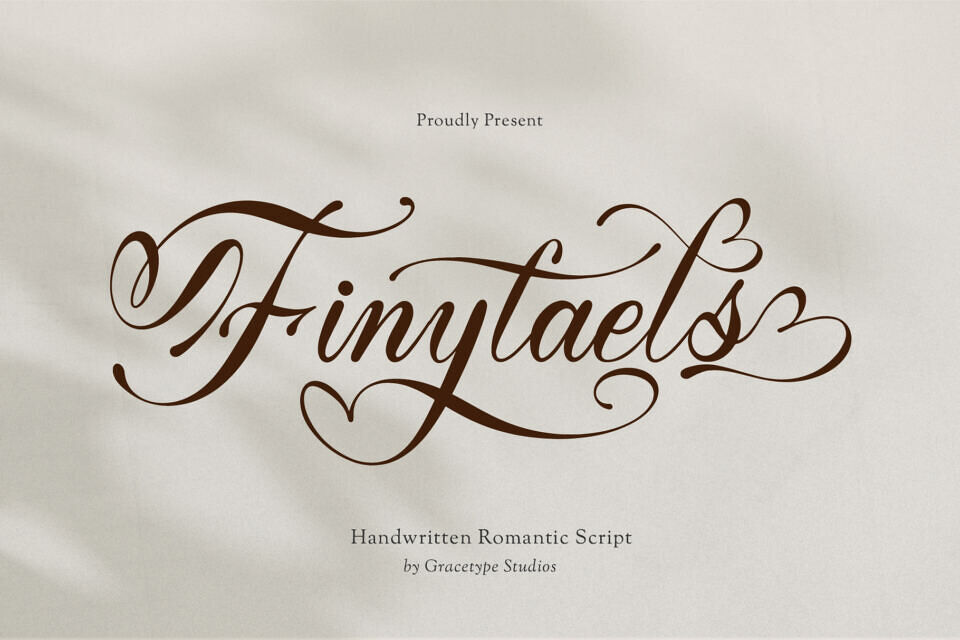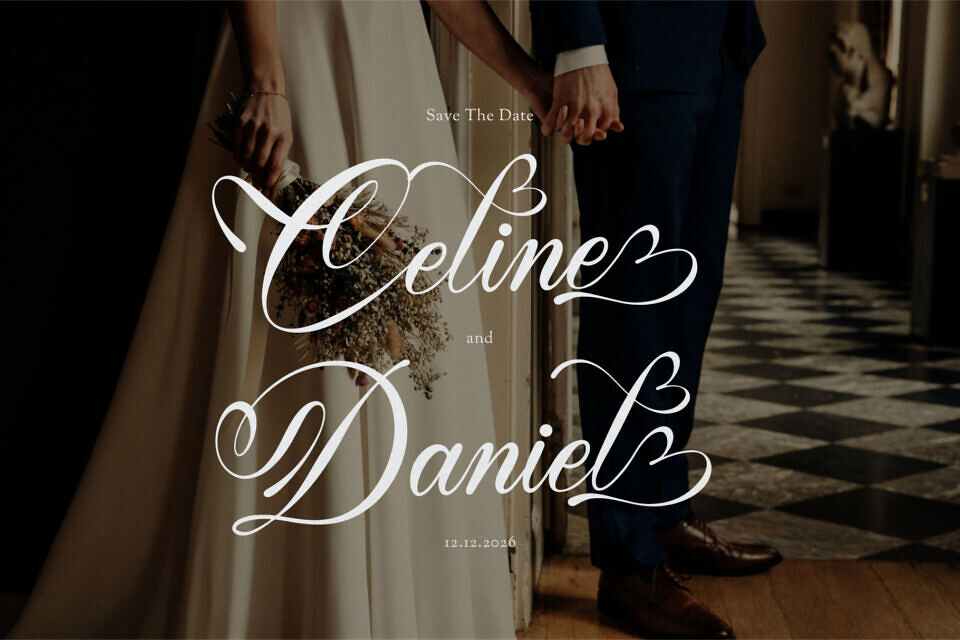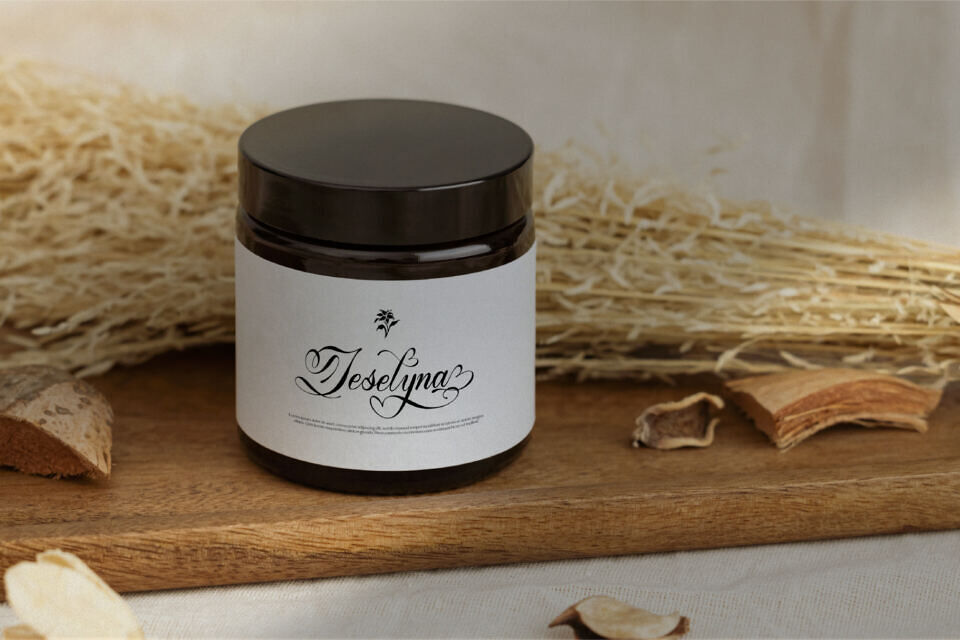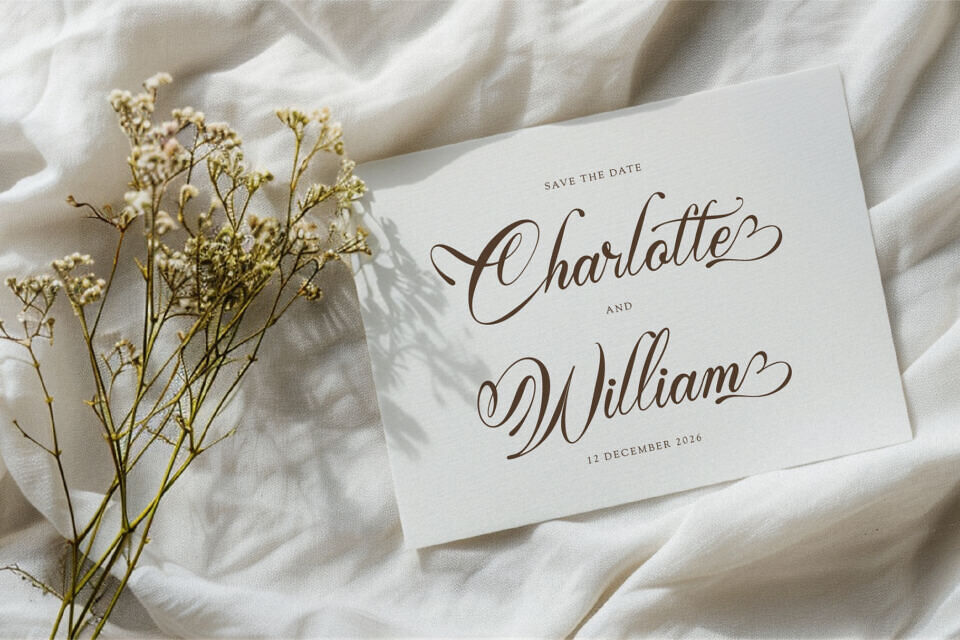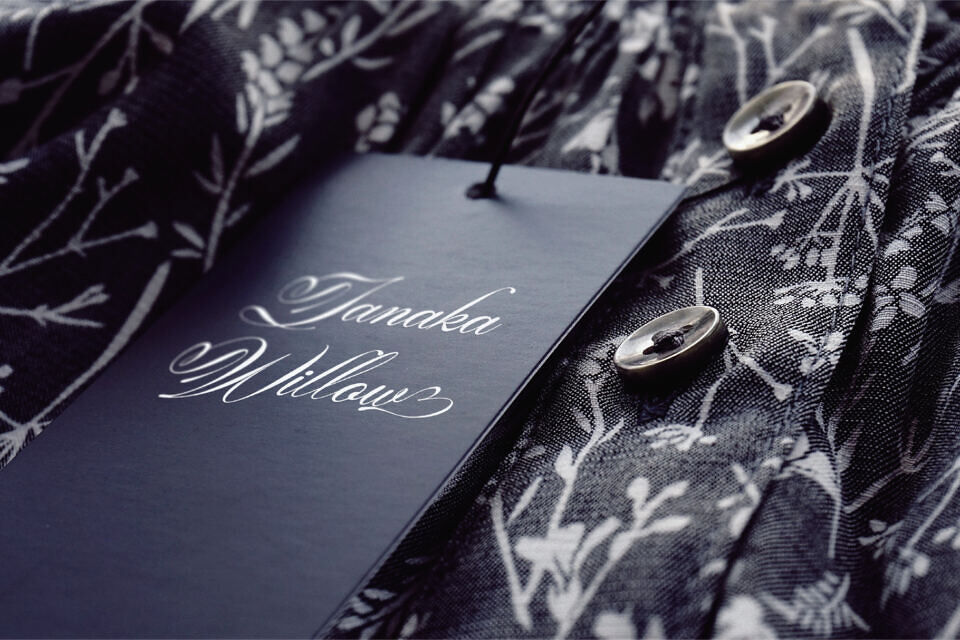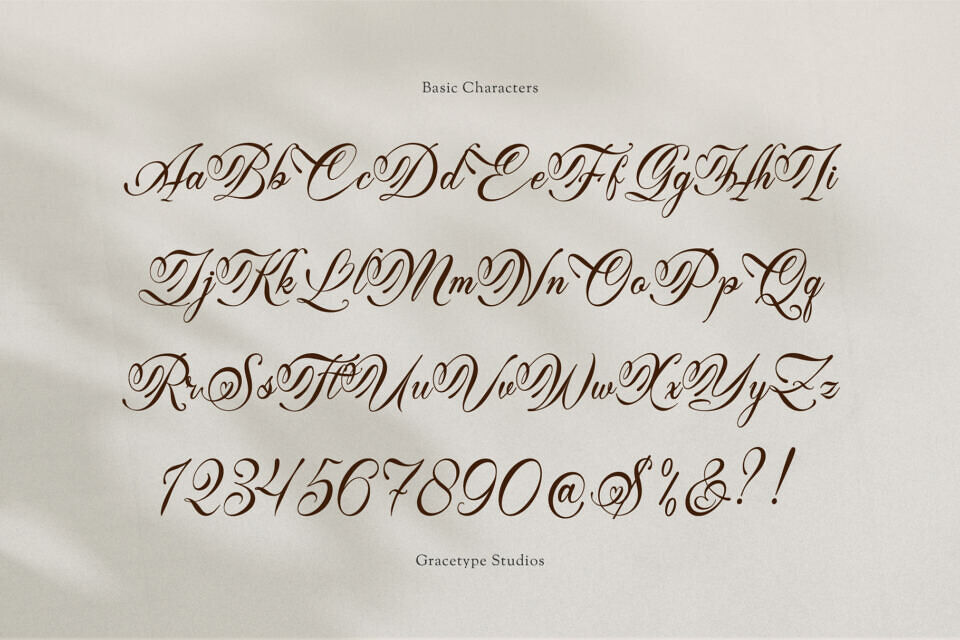
Finytaels is a Handwritting Romantic Script from Gracetypestudio, suitable for any projects such as: logos, branding projects, homeware designs, product packaging, mugs, quotes, posters, shopping bags, t-shirts, book covers, name card, invitation cards, greeting cards, label, photography, watermark, special events, and all your other lovely projects that need a Script taste.